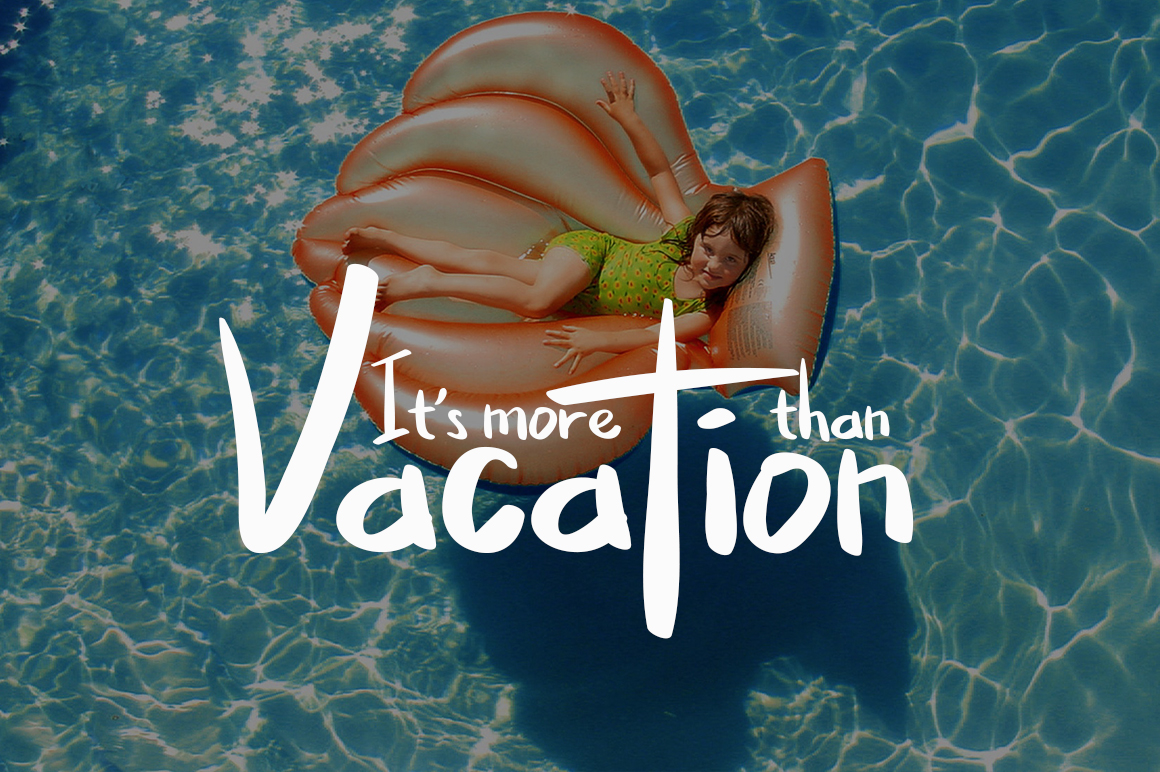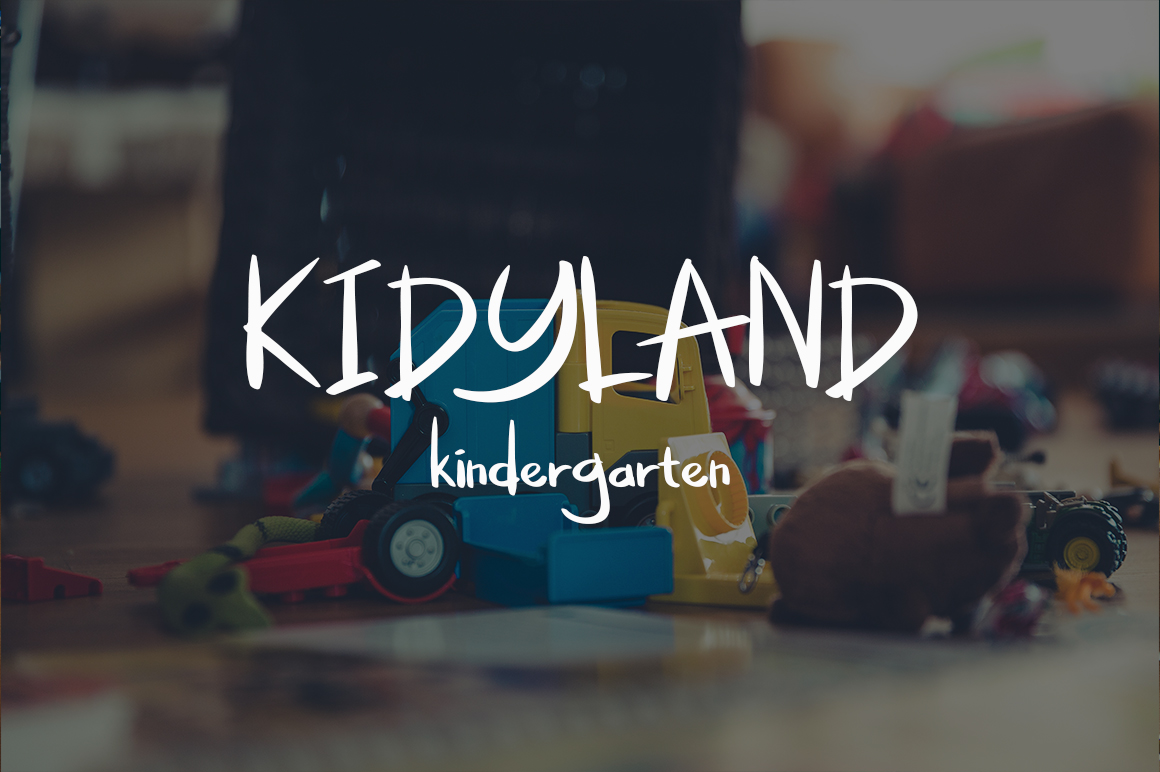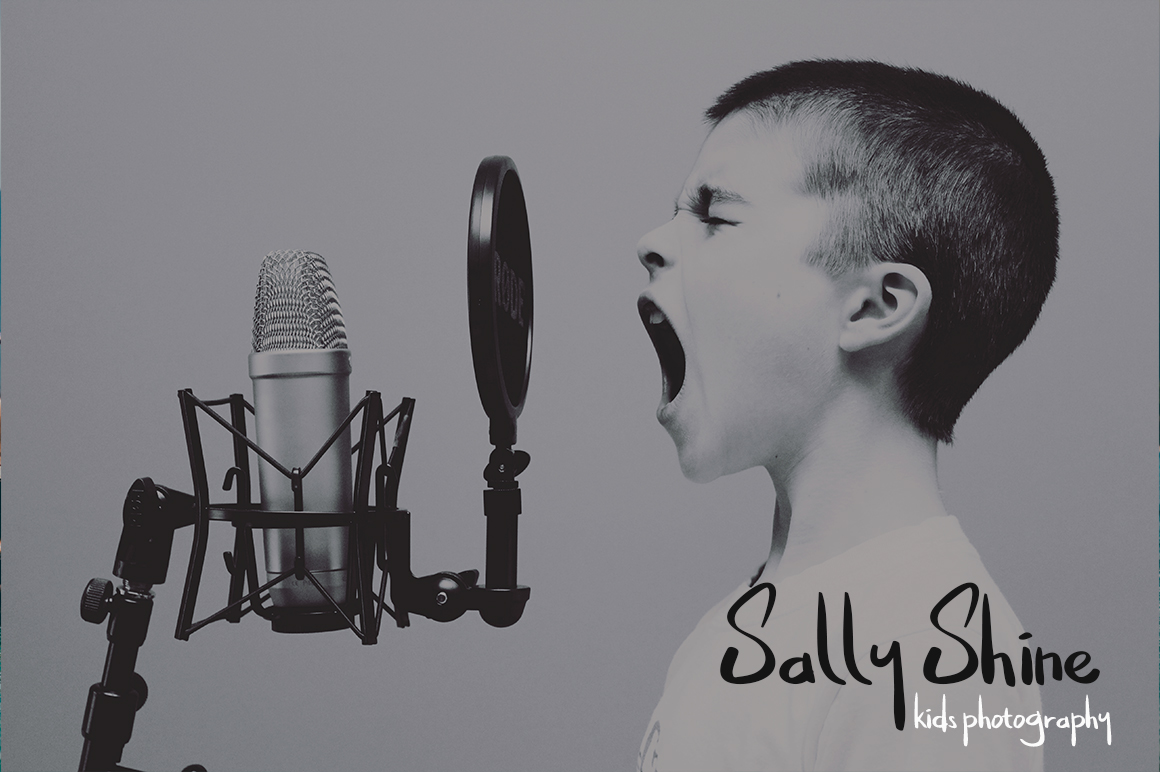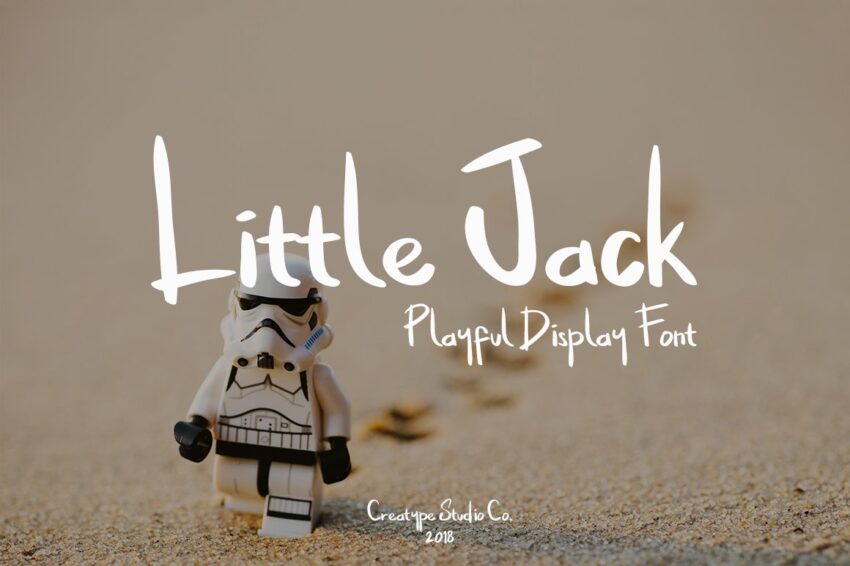
Introduction to Little Jack Font
Meet Little Jack, a fun mixed case font that gives the feeling of β€˜jotting’ something down real fast.
This is a hand drawn font that is both editorial and fun, for a truly unique and adaptable font .
Key Features of Little Jack Font